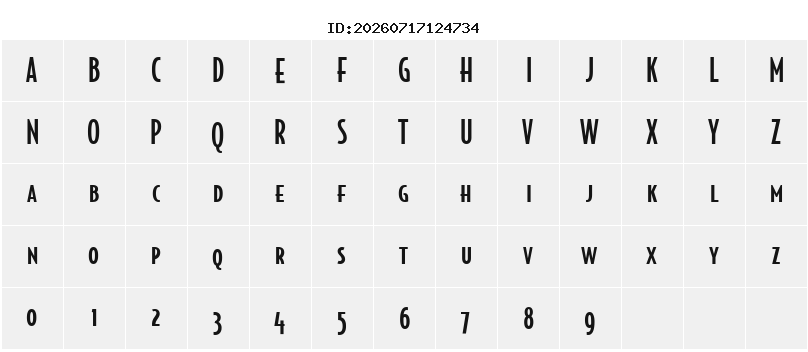
About BodegaSans-MediumSmallcaps.ttf
BodegaSans-MediumSmallcaps.ttf is a modern, elegant sans-serif font designed for ultimate readability and visual harmony. Perfect for branding, headlines, web design, and print materials.